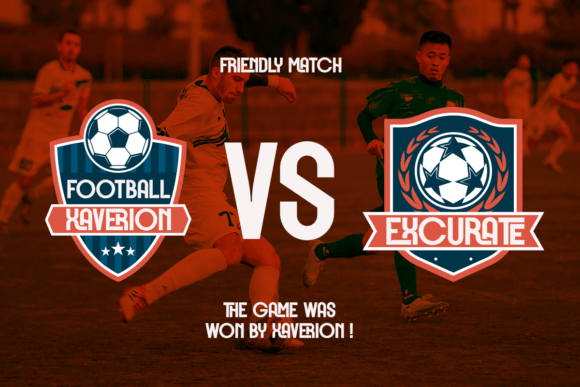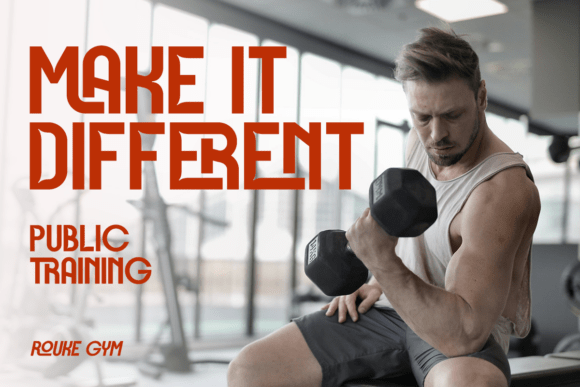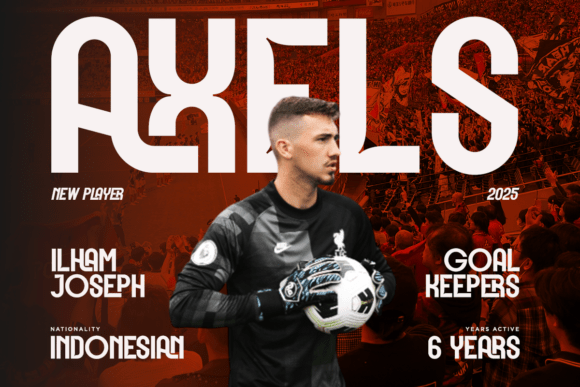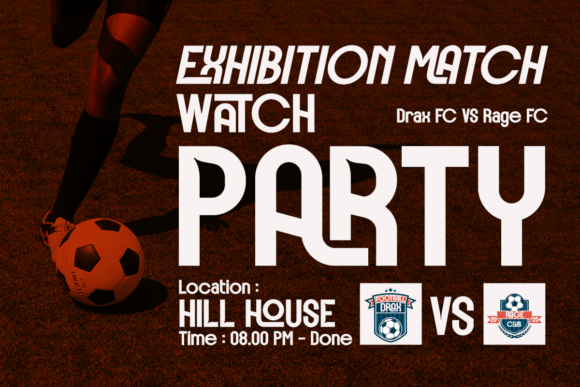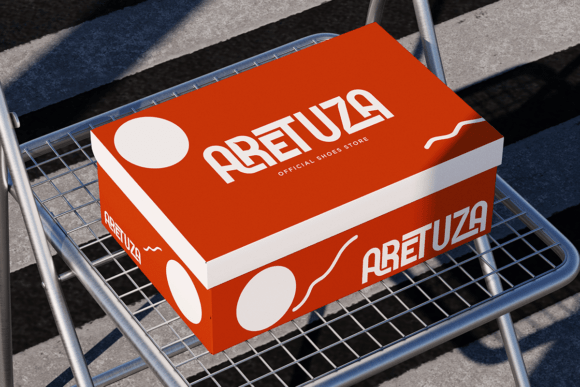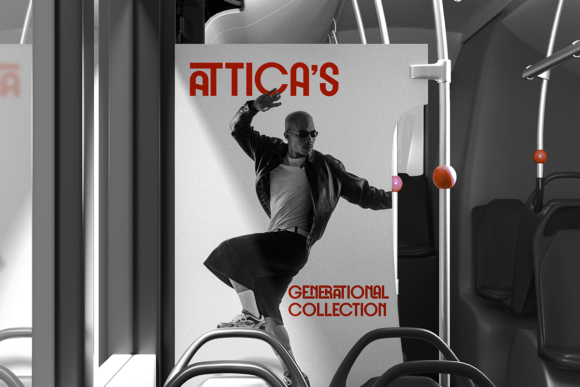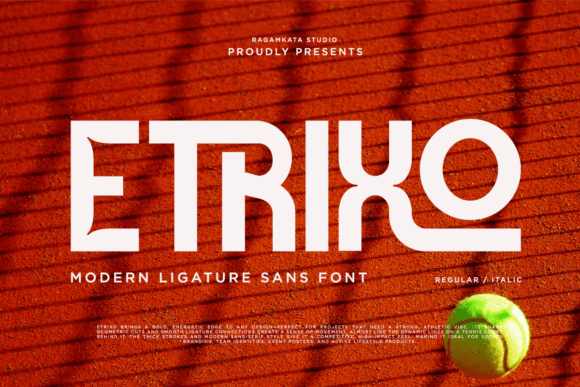
Introducing Etrixo Font: The Ultimate Bold and Sporty Typeface
Are you looking for a font that can bring excitement and impact to your creative projects? Look no further than Etrixo, a bold, condensed sporty font designed to make a statement. Etrixo, also known as ETRIXO, is a modern ligature sans font that commands attention with its strong, geometric aesthetic. In this article, we’ll dive into the features and benefits of Etrixo, and explore how it can elevate your designs to the next level.
A Bold and Energetic Font
Etrixo is a bold, energetic font that is perfect for projects that demand a dynamic, high-impact presence. Its sharp, architectural cuts and sophisticated ligatures give it a unique and stylish rhythm that makes it feel both powerful and contemporary. The clean, wide forms and unexpected connections create a sense of movement and energy, making it an excellent choice for sports branding, high-end fashion editorials, large-scale event posters, and cutting-edge tech advertising.
Key Features of Etrixo Font
• Bold and Condensed Design: Etrixo is a bold, condensed font that is designed to make a statement. Its strong, geometric aesthetic commands attention and adds impact to your designs.
• Modern Ligature Sans Font: Etrixo is a modern ligature sans font that fuses classic proportions with a futuristic, athletic vibe.
• Sharp, Architectural Cuts: The font’s sharp, architectural cuts give it a unique and stylish edge.
• Sophisticated Ligatures: Etrixo’s sophisticated ligatures add a touch of elegance and sophistication to your designs.
• Available in Regular and Italic Styles: Etrixo offers flexibility with both Regular and Italic styles, making it easy to create consistent, brand-aligned designs.
Perfect for High-Impact Designs
Etrixo is perfect for projects that demand a dynamic, high-impact presence. Its bold and energetic design makes it an excellent choice for:
• Sports Branding: Etrixo’s sporty vibe and bold design make it perfect for sports branding, from team logos to jerseys and merchandise.
• High-End Fashion Editorials: The font’s sophisticated ligatures and clean lines make it a great choice for high-end fashion editorials and advertising.
• Large-Scale Event Posters: Etrixo’s bold design and wide forms make it perfect for large-scale event posters, from concerts to festivals and exhibitions.
• Cutting-Edge Tech Advertising: The font’s modern feel and geometric aesthetic make it a great choice for cutting-edge tech advertising and marketing materials.
Why Choose Etrixo Font?
So why choose Etrixo font for your next project? Here are just a few reasons:
• Confidence and Speed: Etrixo’s bold design and energetic vibe project a sense of confidence and speed, making it perfect for brands that want to make a statement.
• Modern Feel: The font’s modern ligature sans design and geometric aesthetic give it a fresh and contemporary feel.
• Flexibility: Etrixo’s availability in both Regular and Italic styles makes it easy to create consistent, brand-aligned designs.
In conclusion, Etrixo font is a bold, condensed sporty font that is perfect for designers and crafters looking to add excitement and impact to their creative projects. Its strong, geometric aesthetic, sophisticated ligatures, and clean lines make it a great choice for high-impact designs, from sports branding to high-end fashion editorials and cutting-edge tech advertising. With its flexibility and modern feel, Etrixo is an excellent choice for any project that demands a dynamic, high-impact presence.